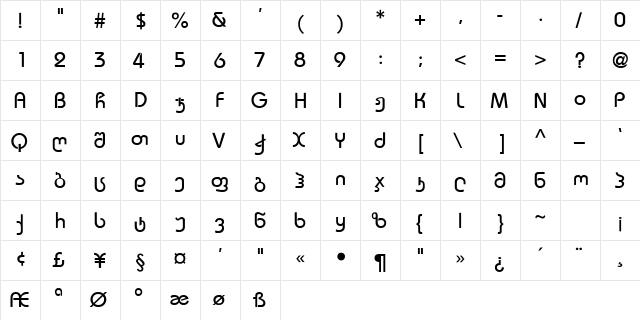
Bauhaus Georgian Thin A
Design Context for Bauhaus Georgian Typeface
Bauhaus Georgian is a composed and adaptable typeface that performs quietly and consistently across a wide range of design contexts. Its slender proportions lend an understated elegance to any composition.